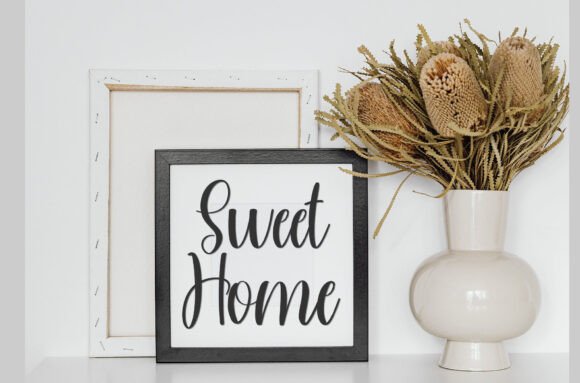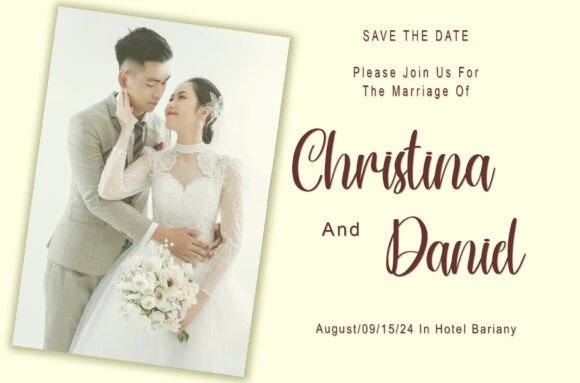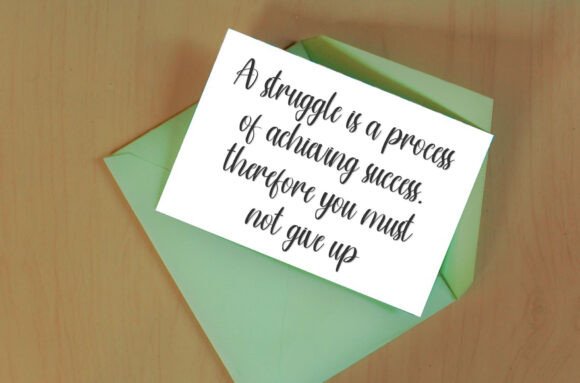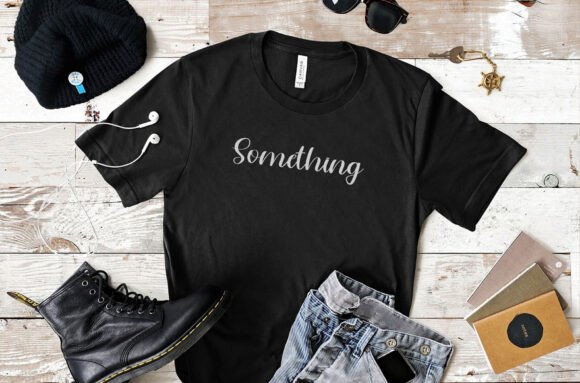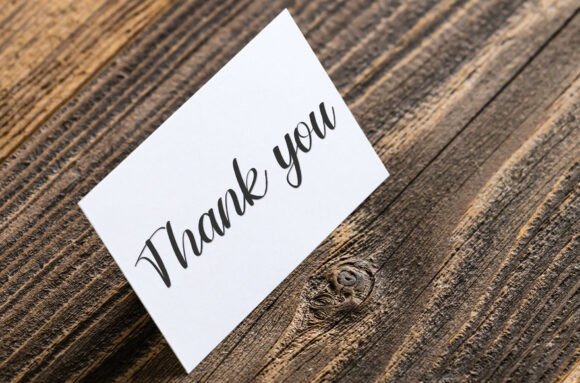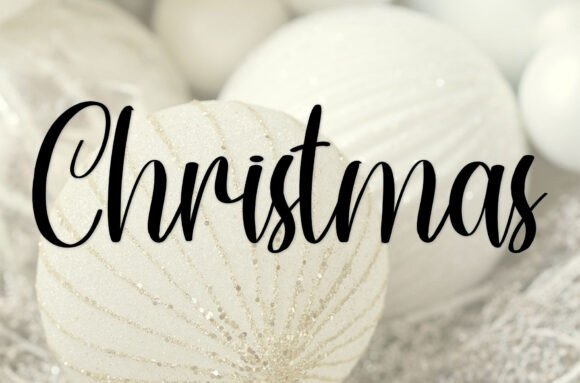
Introducing Christmas: The Enchanting Cursive Font for Your Holiday Designs
Are you looking for a font that captures the essence of the holiday season? Do you want to add a touch of elegance and sophistication to your designs? Look no further than Christmas, a beautiful cursive font that is perfect for creating stunning holiday-themed projects.
The Perfect Font for Holiday Designs
Christmas is an enchanting cursive font with a handwritten flourish that is sure to make your designs stand out. Its tender and fluid design lends a beautiful balance to a myriad of creative outputs, from wedding essentials and greeting cards to fashion lookbooks and marketing promotions.
With Christmas, you can infuse your projects with a playful yet romantic ambiance that is sure to captivate your audience. Whether you’re designing a logo, creating a social media post, or crafting a holiday card, this font is the perfect choice.
Key Features of the Christmas Font
- Handwritten flourish: The Christmas font features a beautiful handwritten flourish that adds a touch of elegance and sophistication to any design.
- Tender and fluid design: The font’s tender and fluid design makes it perfect for creating beautiful, flowing text that is easy to read.
- Playful yet romantic ambiance: The Christmas font has a playful yet romantic ambiance that is sure to make your designs stand out.
- Versatile: The font is versatile and can be used for a wide range of design projects, from logos and branding to greeting cards and holiday-themed designs.
Why Choose the Christmas Font?
There are many reasons why you should choose the Christmas font for your holiday designs. Here are just a few:
- Elegance and sophistication: The Christmas font adds a touch of elegance and sophistication to any design, making it perfect for high-end brands and luxury products.
- Unique and distinctive: The font’s unique and distinctive design makes it stand out from other fonts, ensuring that your designs will be noticed.
Design Ideas Using the Christmas Font
The Christmas font is versatile and can be used for a wide range of design projects. Here are a few ideas to get you started:
- Holiday cards and invitations: Use the Christmas font to create beautiful holiday cards and invitations that are sure to impress.
- Wedding essentials: The font is perfect for wedding essentials such as wedding invitations, save-the-date cards, and thank-you cards.
- Fashion lookbooks and marketing promotions: Use the Christmas font to add a touch of elegance and sophistication to your fashion lookbooks and marketing promotions.
- Logos and branding: The font is perfect for creating distinctive logos and branding materials that stand out from the crowd.
The Christmas font is a beautiful and versatile font that is perfect for creating stunning holiday-themed designs. With its tender and fluid design, playful yet romantic ambiance, and elegant and sophisticated feel, it’s the perfect choice for designers and crafters looking to add a touch of magic to their projects.